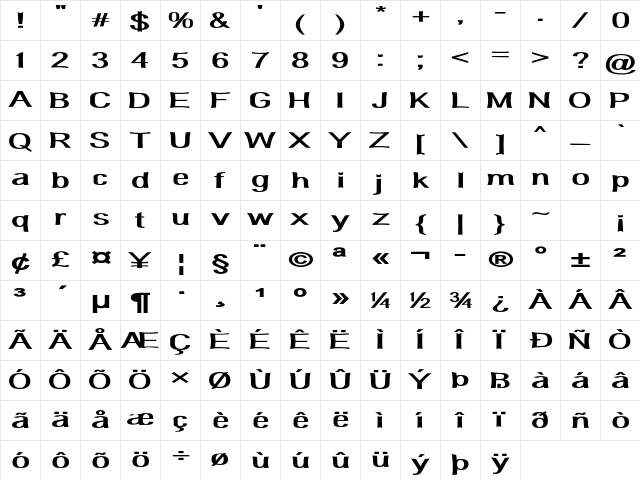
Delafino Extra-expanded Bold
Style: Extra-expanded Bold
Delafino Family
Delafino Extra-expanded Bold
Design Context for Delafino
Delafino is a composed and adaptable typeface that performs quietly and consistently across a wide range of design contexts. Its bold stroke weight gives it real presence on the page.